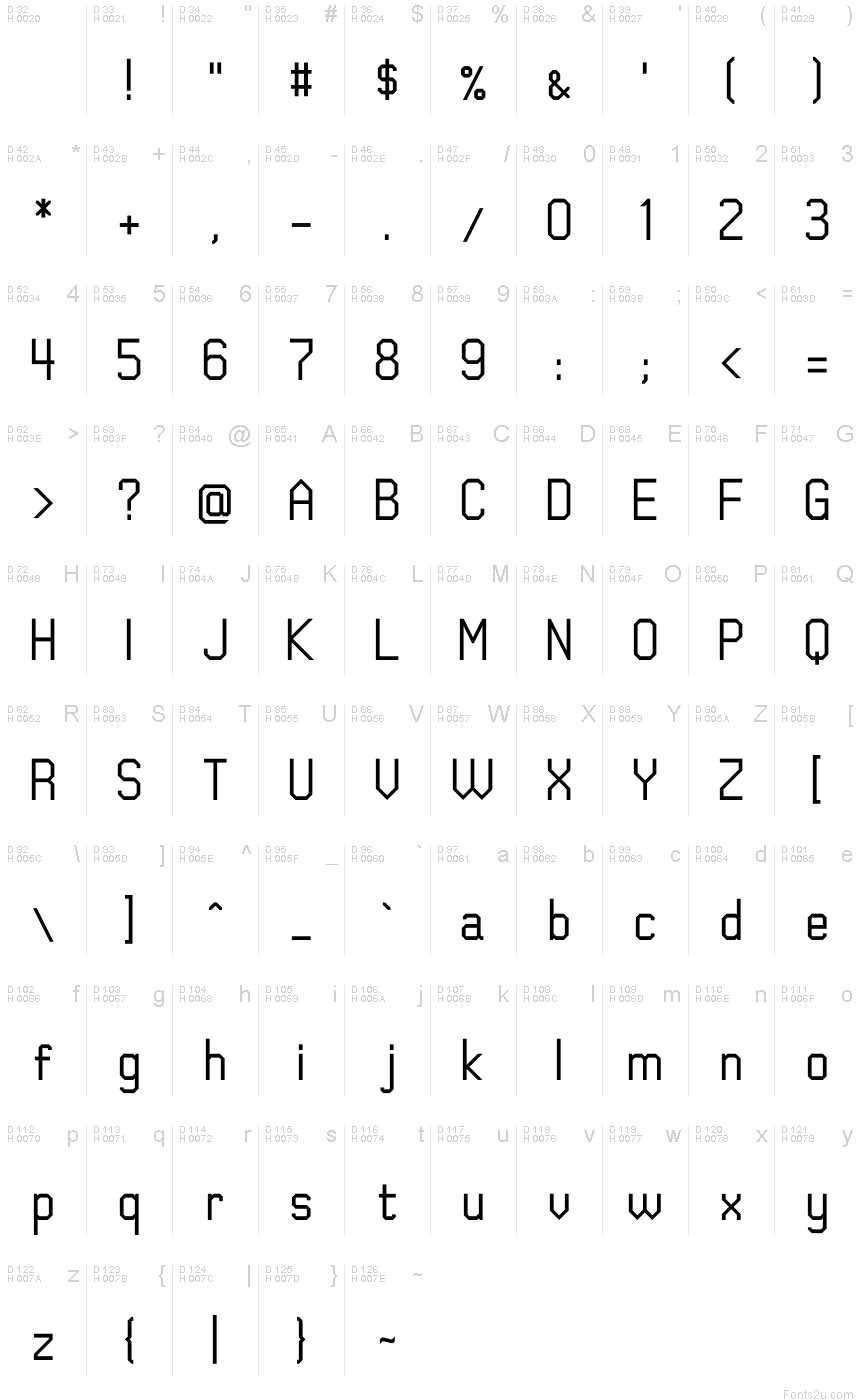
Cristina by caliopigio of FontStruct is a free geometric techno display font with lean, evenly weighted strokes and sharply clipped corners. Its squared curves give the lettering a crisp digital outline.
Circuit diagrams and blocky interface graphics echo its angular construction, making it a convincing fit for game branding, electronic music posters, and software event graphics. In editorial design, it can shape technology features and science-fiction cover lines with lettering that feels engineered rather than conventionally typeset across magazine pages and digital publications.
Glifi del carattere Cristina Medium Regular — Latino di base, pagina 1